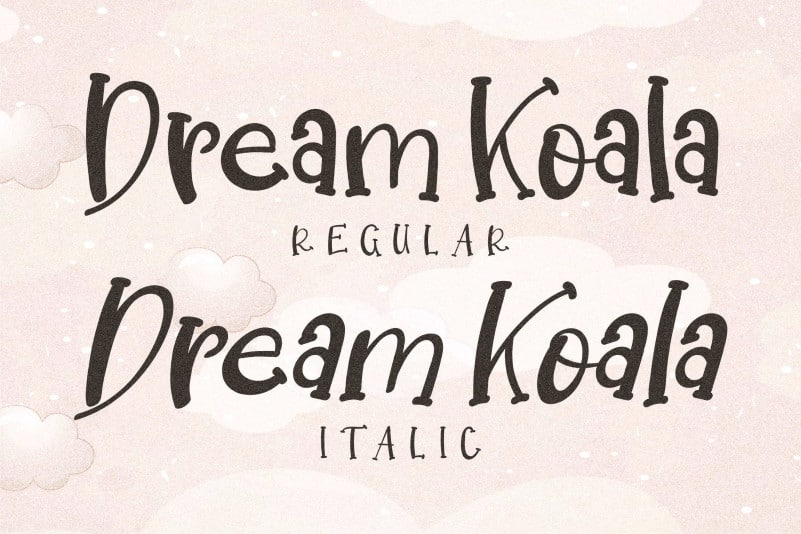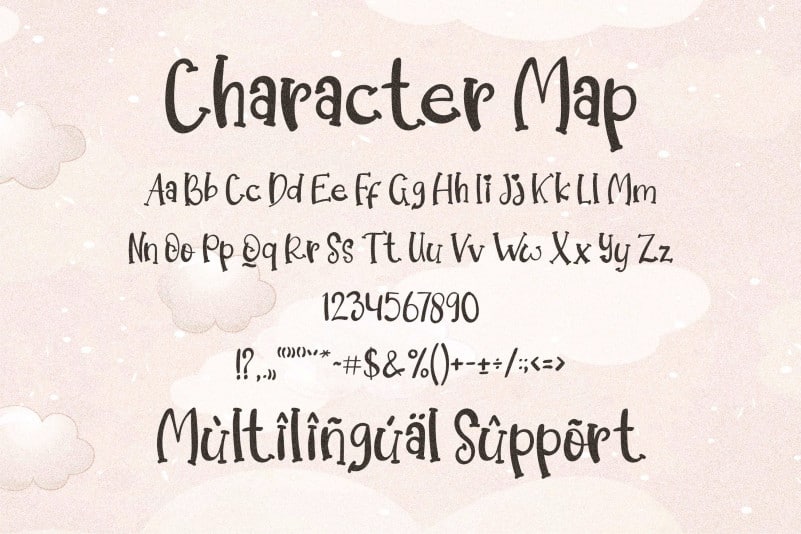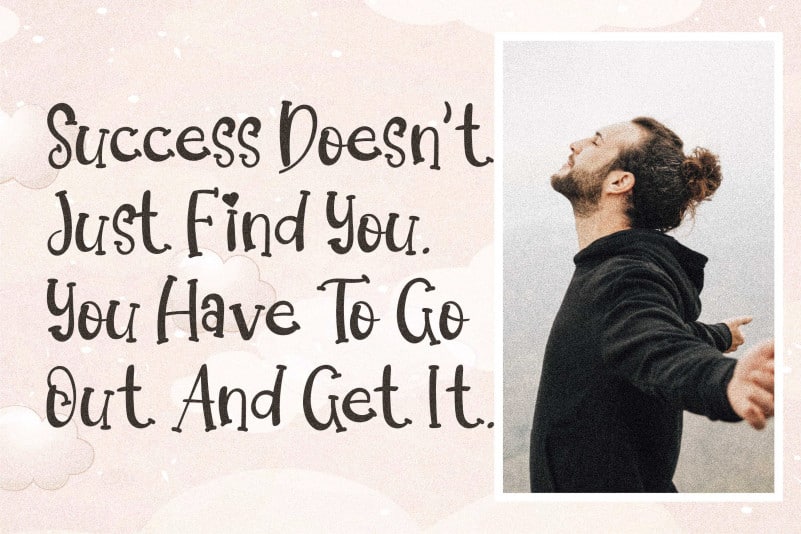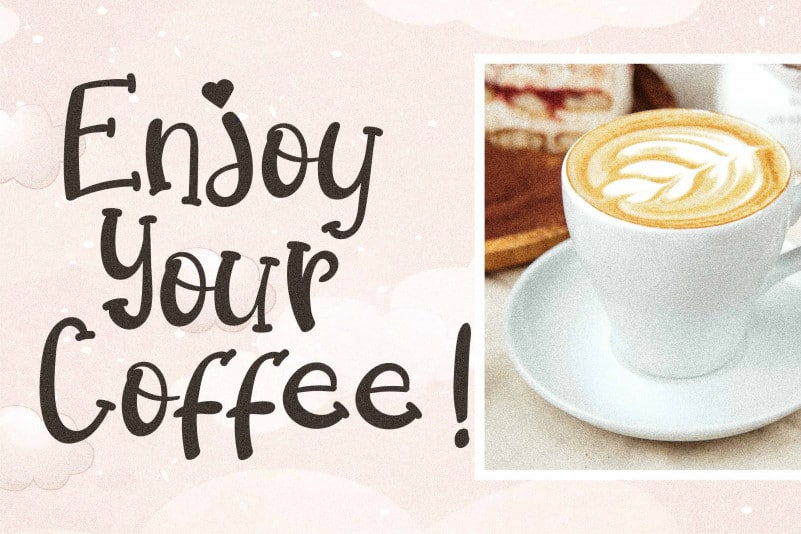
Dream Koala Display Font
Dream Koala Display Font is quirky and friendly handwritten font. Masterfully designed to become a true favorite, this font has the potential to bring each of your creative ideas to the highest level!